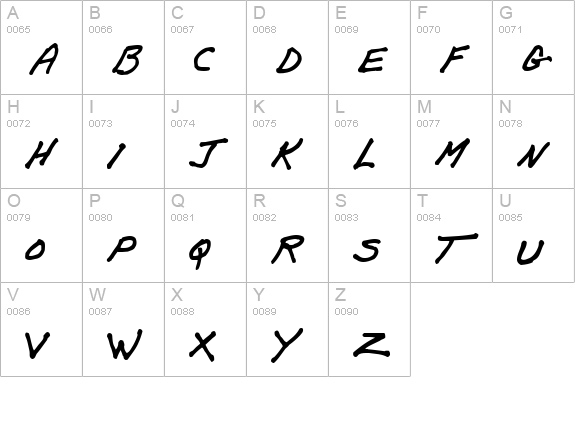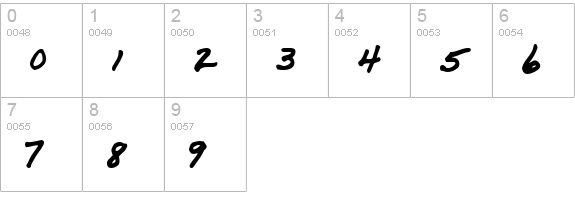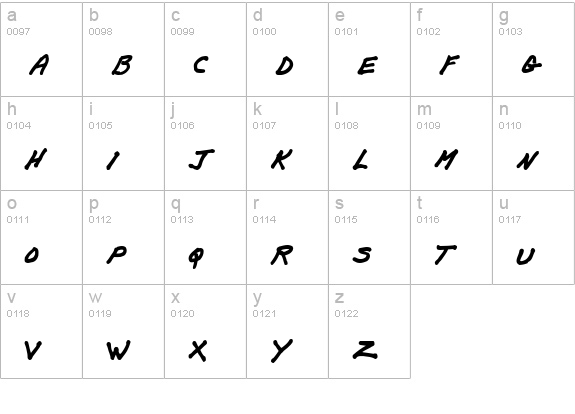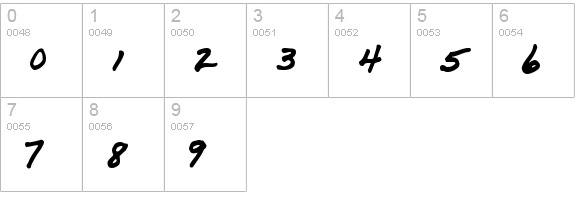
PapaMano AOE Font Details
PapaMano AOE is a beautifully crafted font that exudes elegance and sophistication. With its stylish and modern aesthetic, this typeface is perfect for adding a touch of class to any project. The unique combination of sharp edges and smooth curves creates a harmonious balance, making PapaMano AOE a truly eye-catching font. What sets PapaMano AOE apart is not just its stunning design, but also the fact that it is available for free. Yes, you read that right! This amazing font can be freely downloaded at FontsMarket.com, making it accessible to everyone. Whether you're a professional designer looking to enhance your portfolio or a casual user in need of a stunning font for personal projects, PapaMano AOE is the perfect choice. The versatility of PapaMano AOE is another aspect that makes it stand out. This font is suitable for a wide range of applications, including branding, advertising, packaging, invitations, and much more. Its clean and legible appearance ensures that your message is delivered with clarity and impact. PapaMano AOE also offers a variety of weights and styles, allowing you to experiment and create unique combinations that suit your specific needs. From bold and attention-grabbing headlines to subtle and elegant body text, this font has got you covered. So why wait? Download PapaMano AOE for free at FontsMarket.com and unlock the potential to elevate your designs to a whole new level. With its exceptional design and accessibility, this font is a must-have for any creative individual. Start using PapaMano AOE today and watch your projects come to life with style and sophistication.